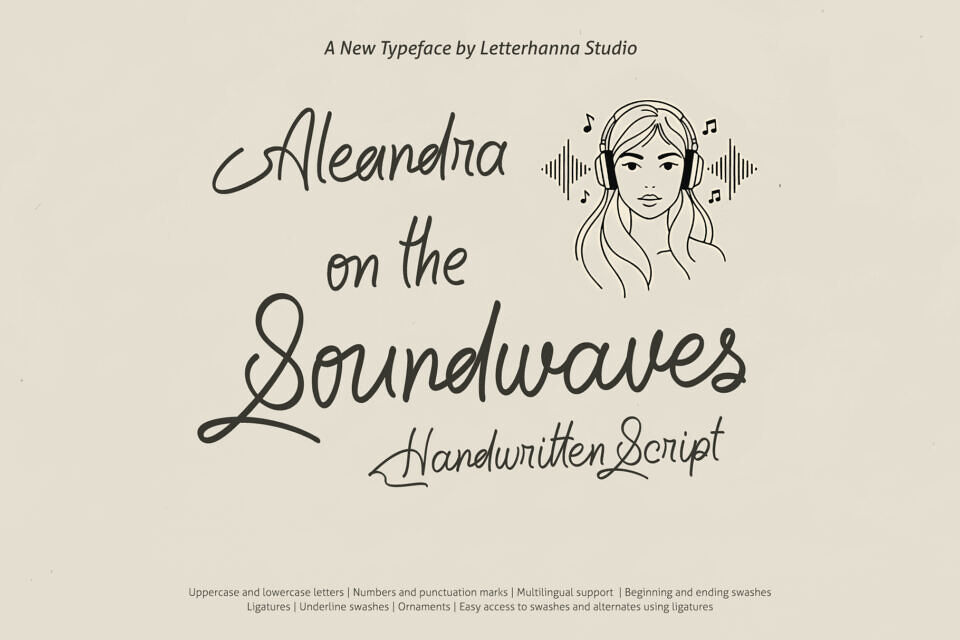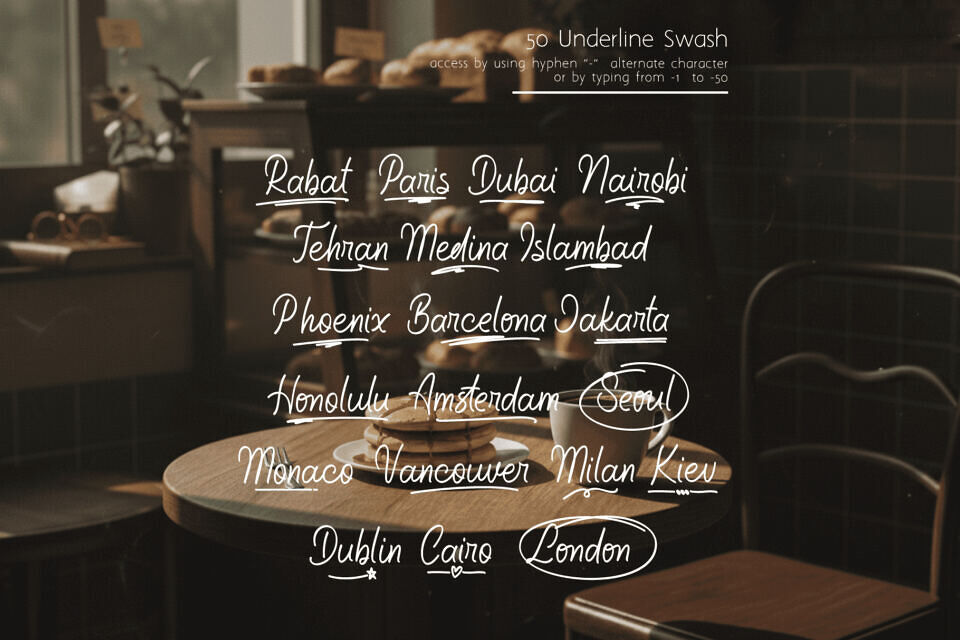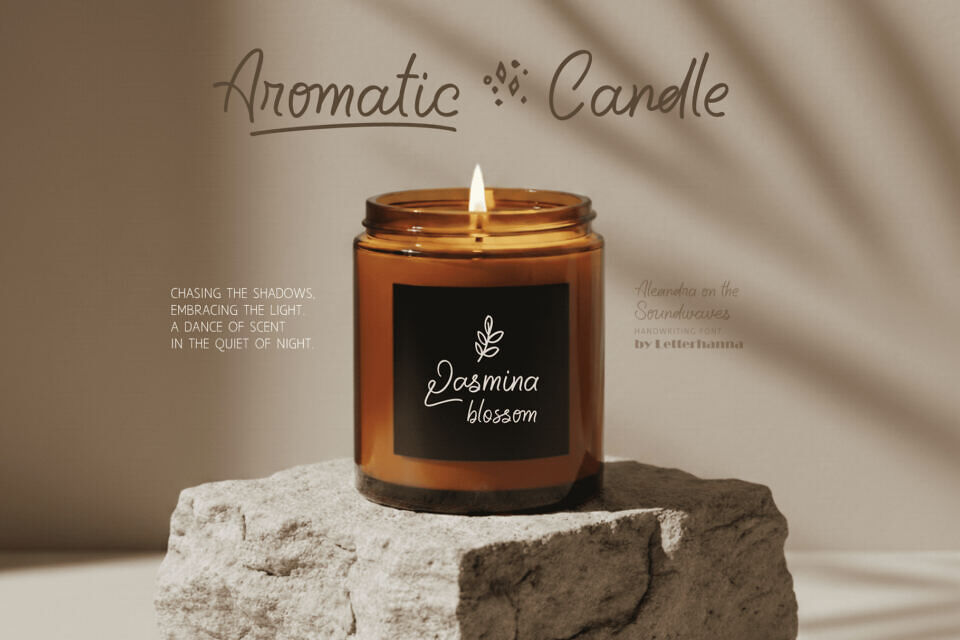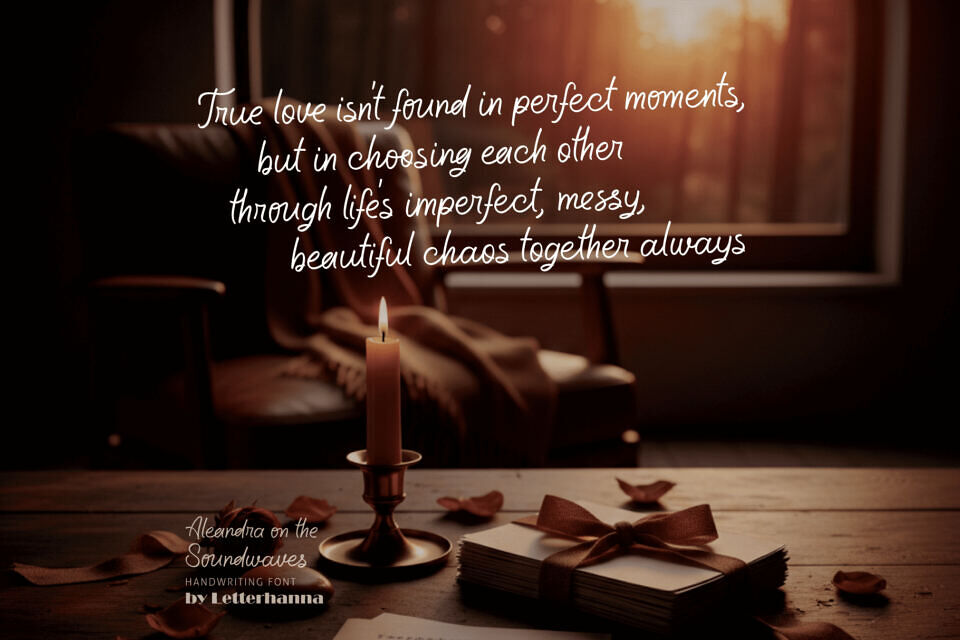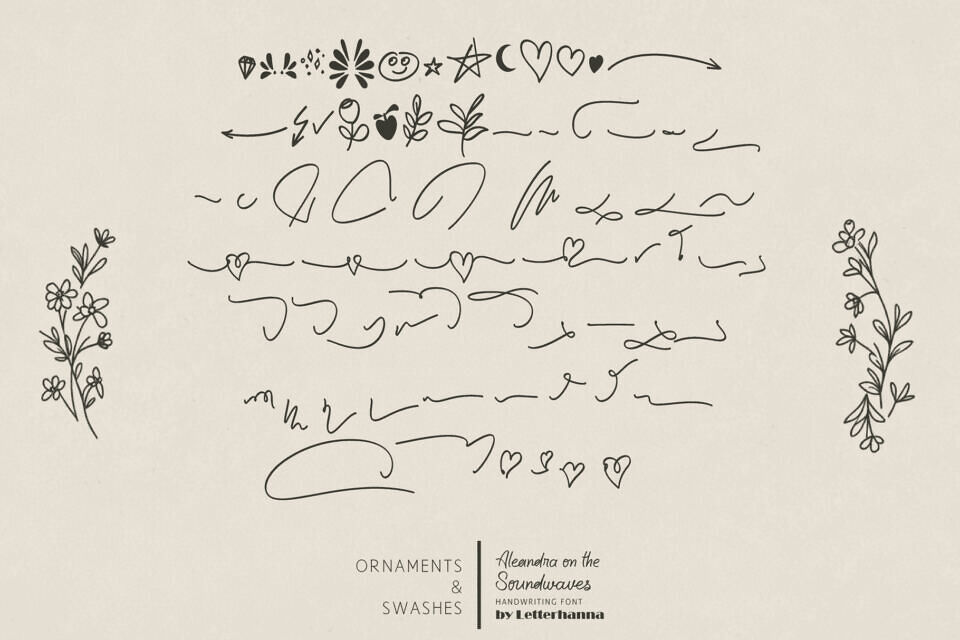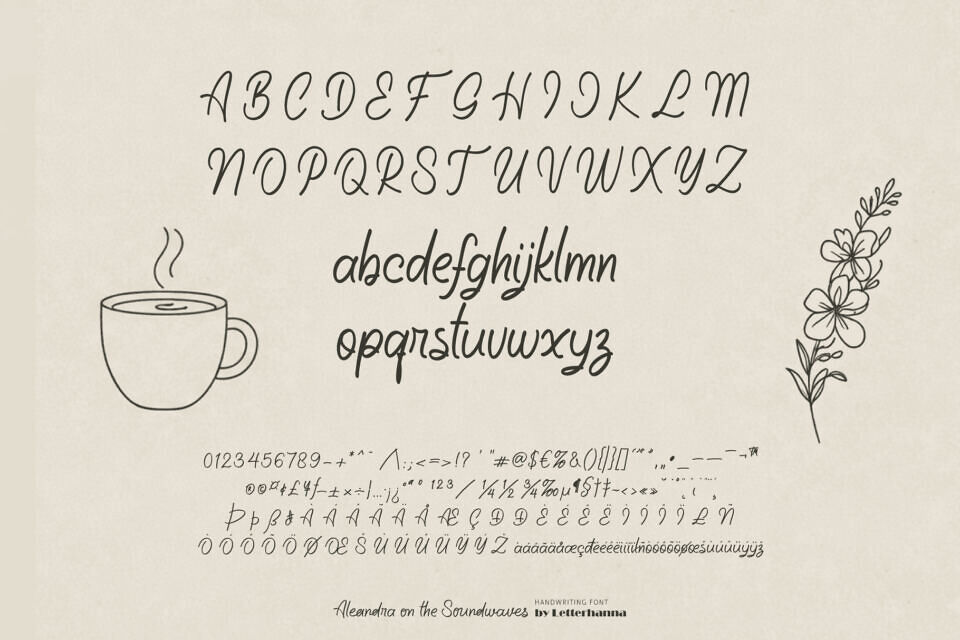
Add some personality to your text with Aleandra on the Soundwaves, a handwriting font inspired by soundwave patterns. This unique font features artistic swashes, customizable alternates, and striking underlines, transforming ordinary text into vibrant compositions.
Perfect for music branding, posters, packaging, or social media content, it’s a great way to infuse your work with creative energy. Give your projects a harmonic boost with this innovative font.